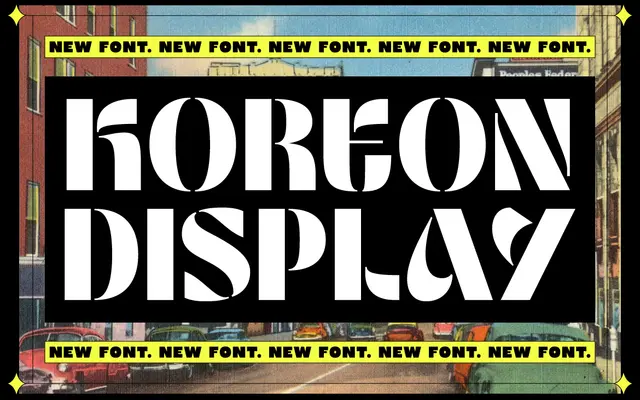
Koreon Display
Koreon Display specimen from Prioritype
A single-weight stencil display font with bold, blocky letterforms aimed at poster, branding and logo work.
A stencil display typeface from Prioritype with a retro-leaning character suited to posters, merchandise and logo lockups. It ships in OTF, TTF and WOFF formats and covers an extensive range of Latin-based languages including most Western and Eastern European variants. There is only one weight and no italic, so its application is narrow.
A bold stencil display typeface with large, attention-grabbing letterforms designed primarily for headlines, posters and branding rather than body text. The stencil construction and display intent place it firmly in the display category.